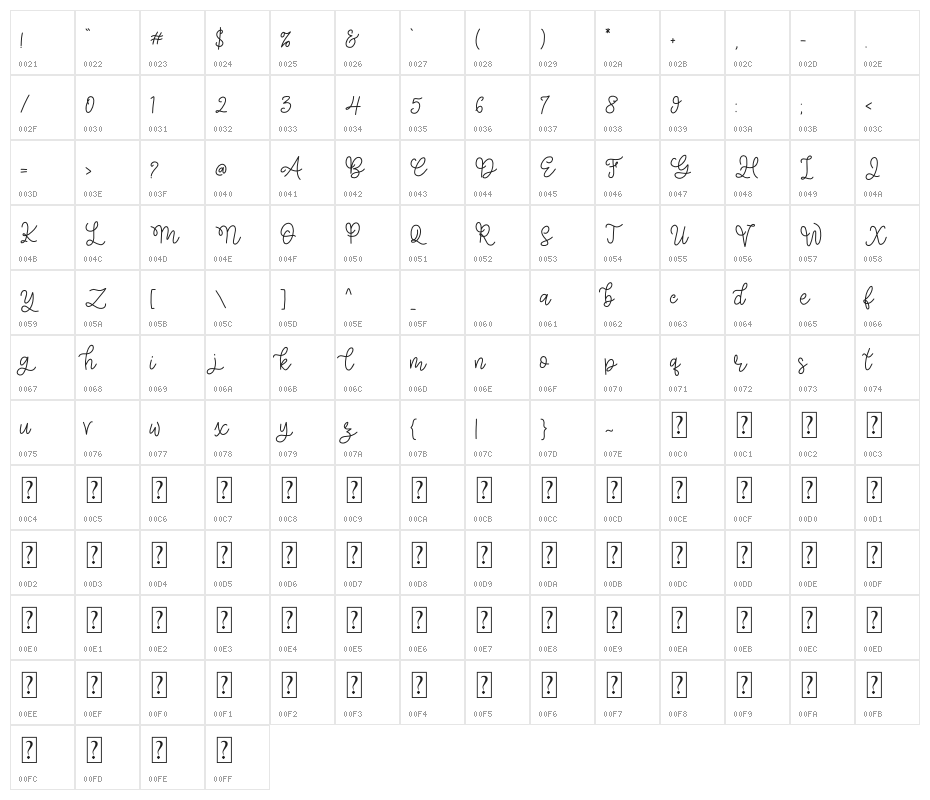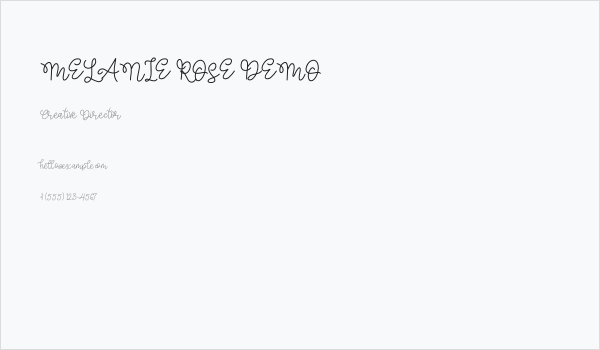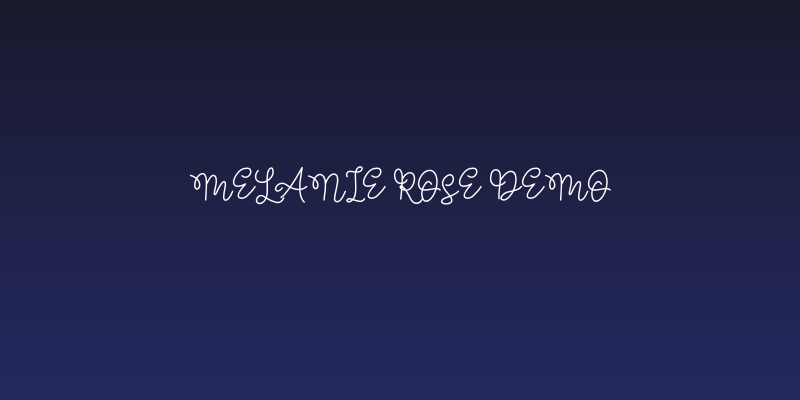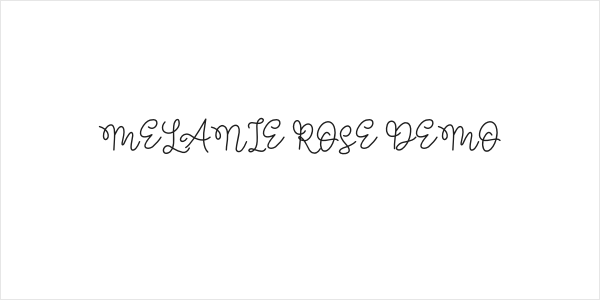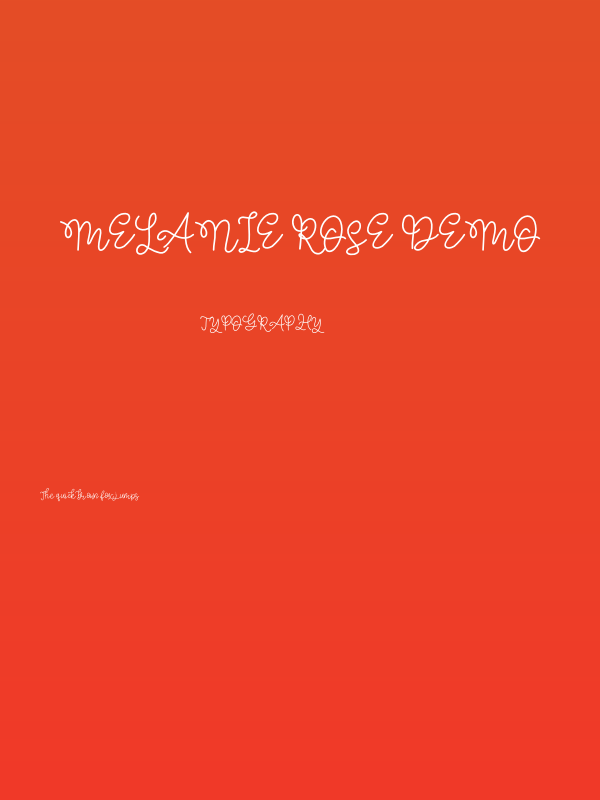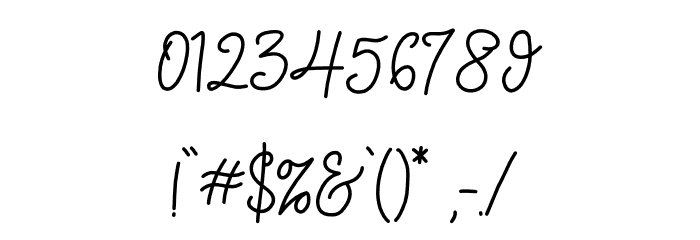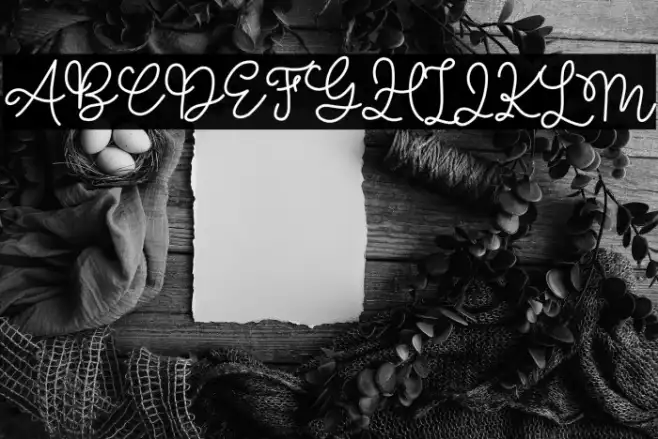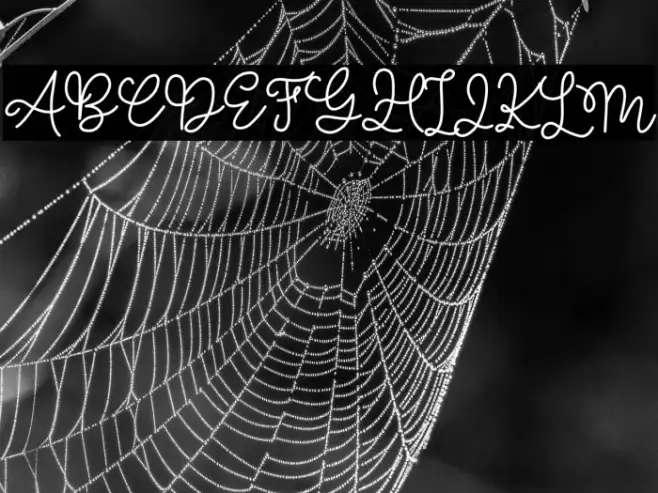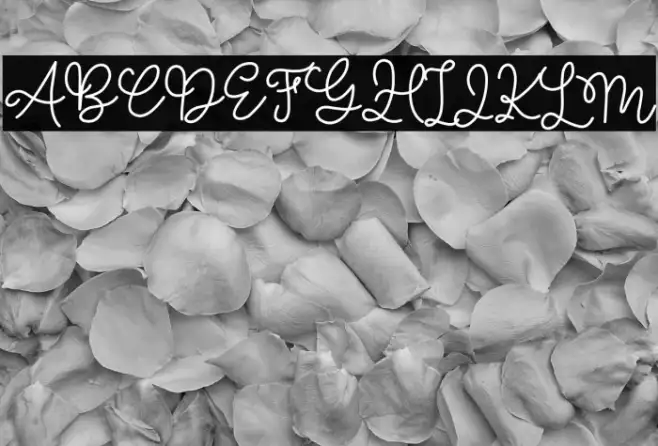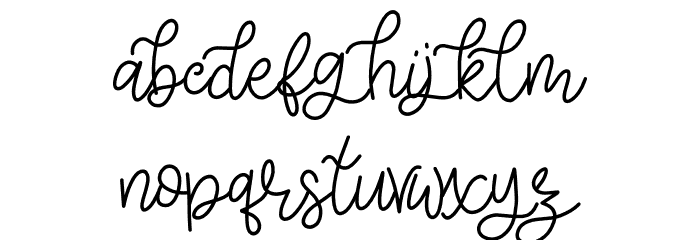
MELANIE ROSE DEMO Font
MELANIE ROSE DEMO Description
This font features a charming and elegant handwritten style with a flowing, cursive script. The letters are interconnected, creating a seamless and fluid appearance. The uppercase letters are bold and expressive, while the lowercase letters maintain a consistent and graceful flow. The numerals and special characters complement the overall style, adding a touch of whimsy and sophistication. The font's design is perfect for adding a personal and artistic touch to any project, with its delicate curves and loops enhancing its aesthetic appeal.
| Proposed Projects | Ideal for wedding invitations, greeting cards, personal branding, and artistic projects. |